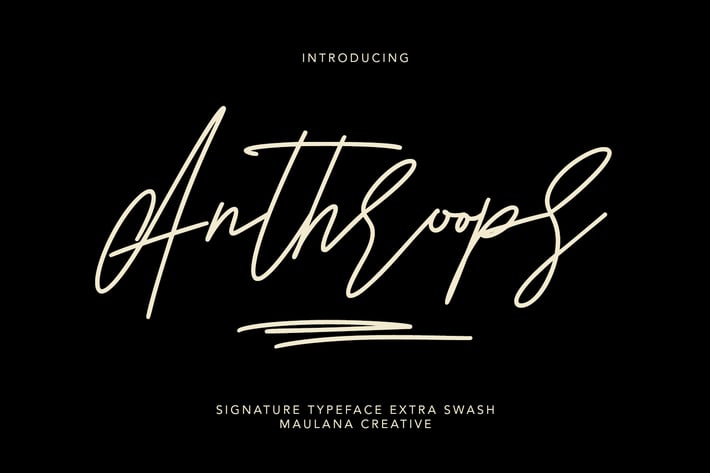
Anthroops Signature Typeface Extra Swash
Give your designs an authentic handcrafted feel. "Anthroops" is perfectly suited to signature, stationery, logo, typography quotes, magazine or book cover, website header, clothing, branding, packaging design and more.